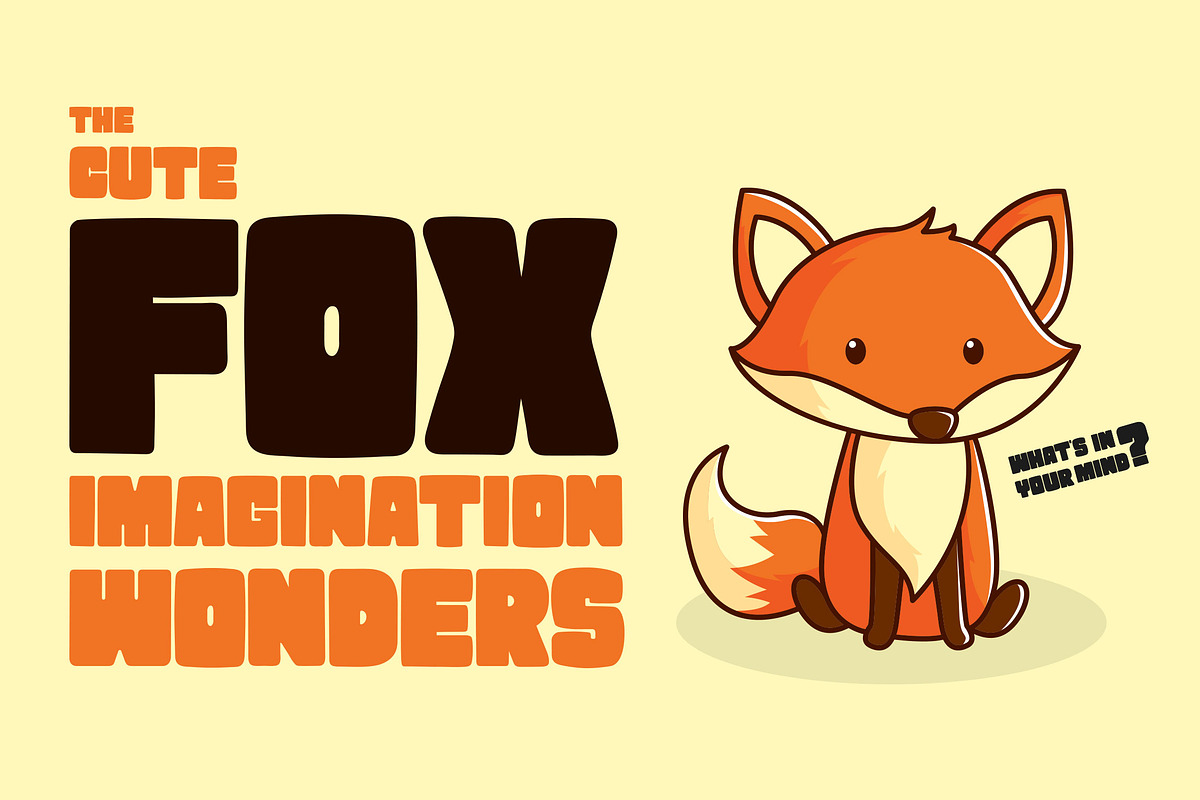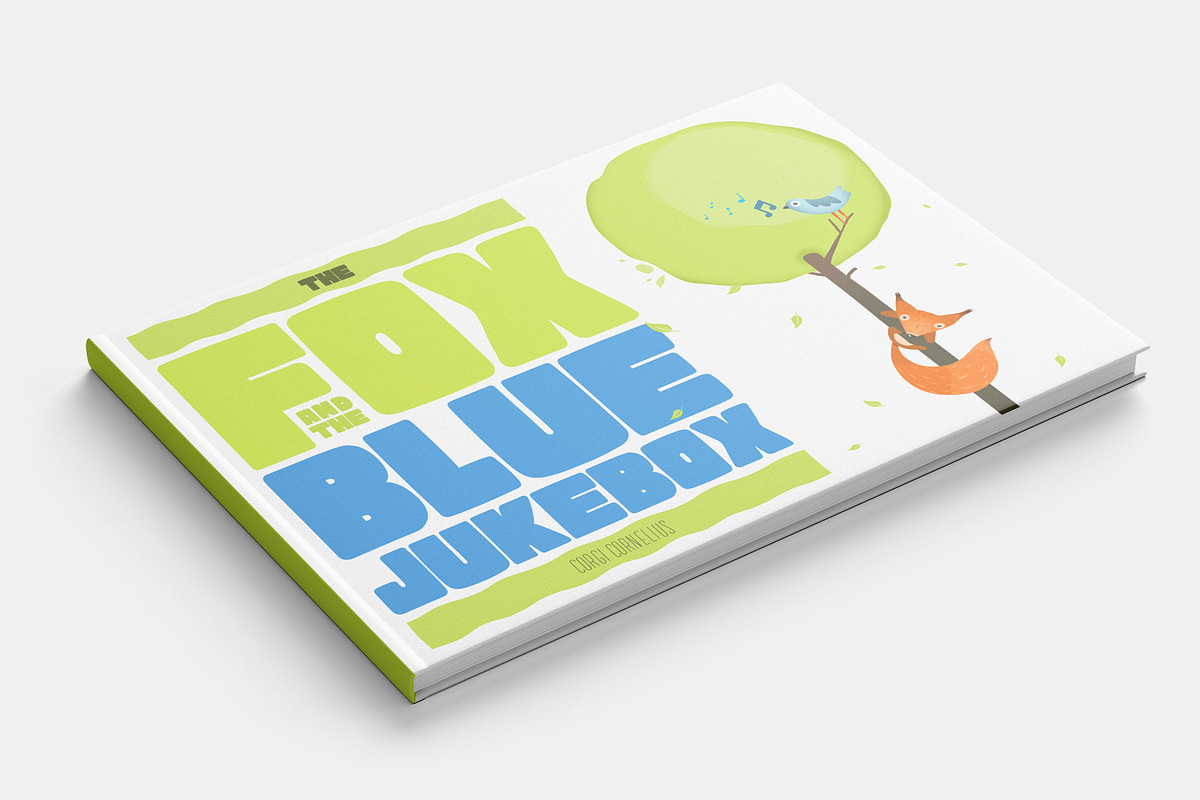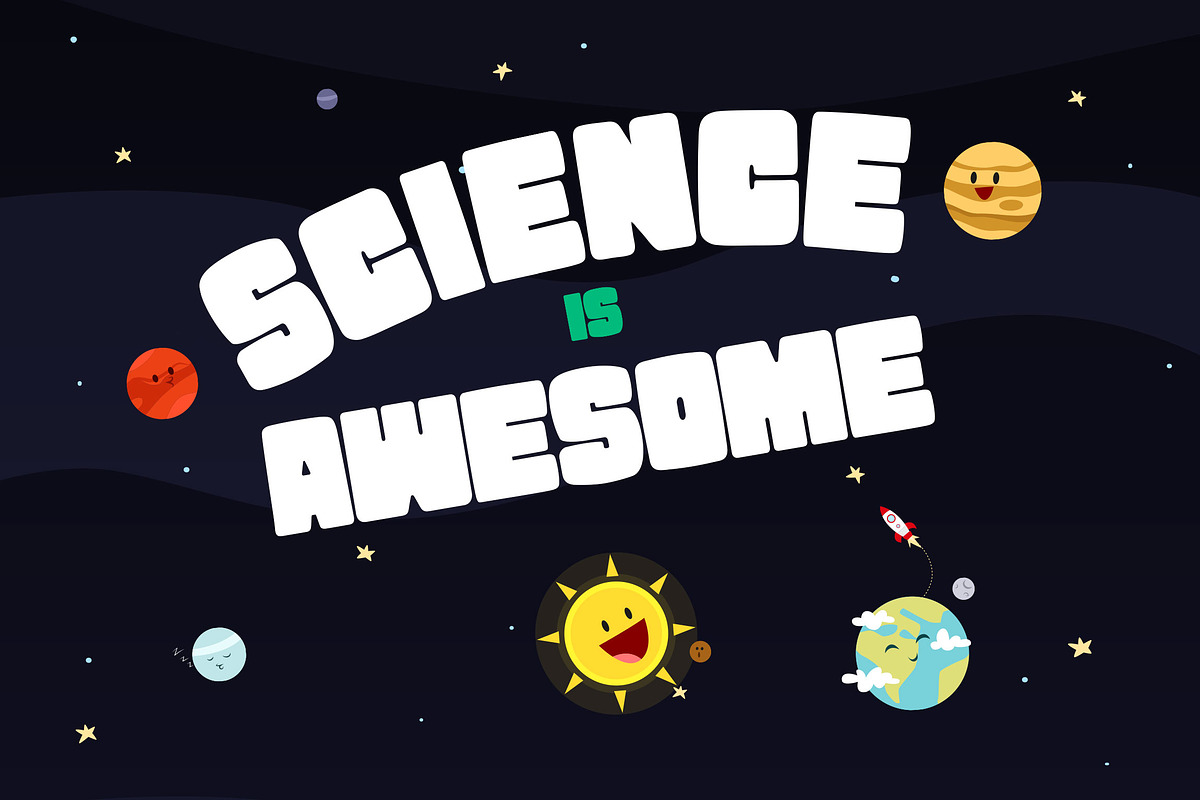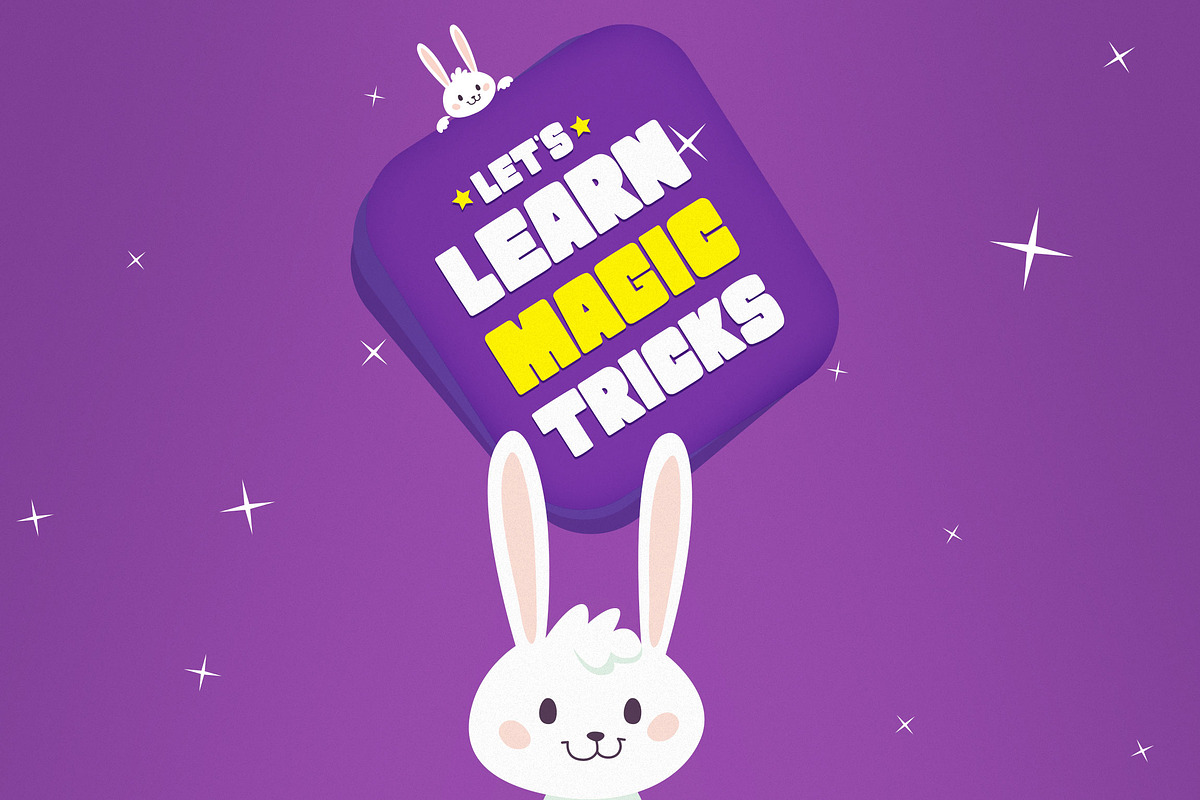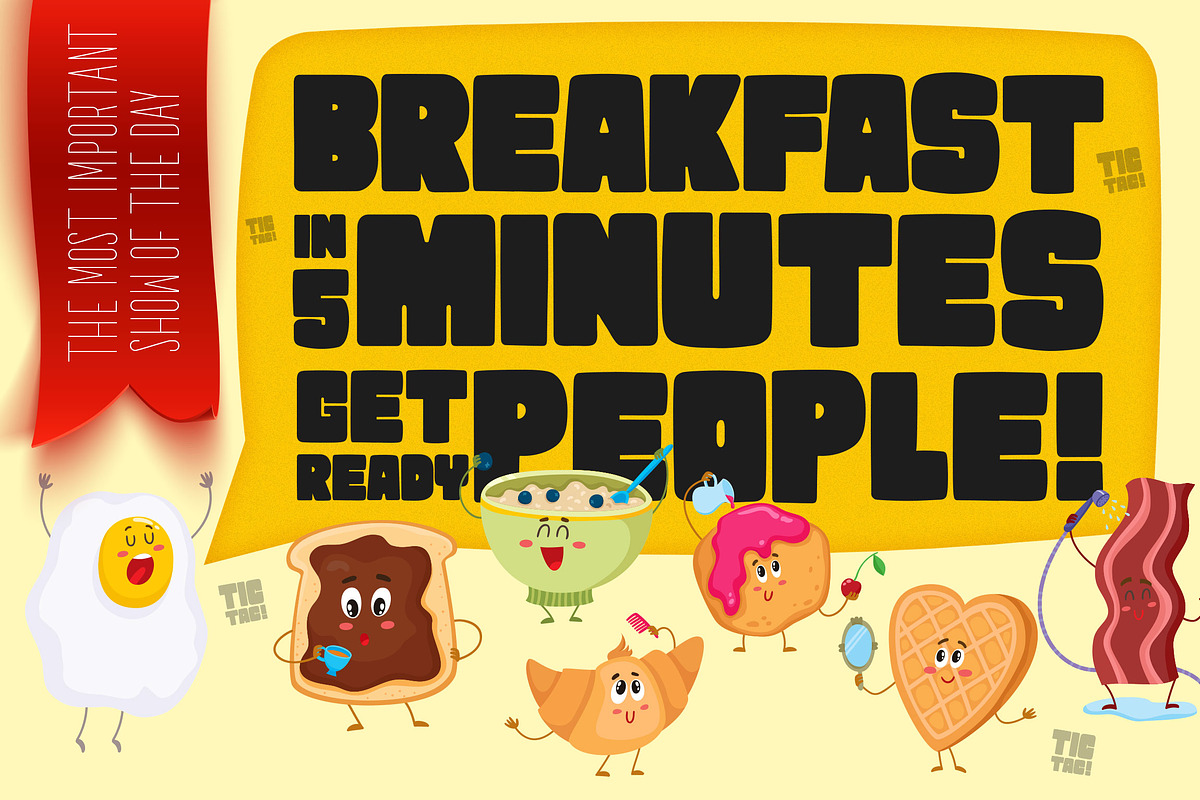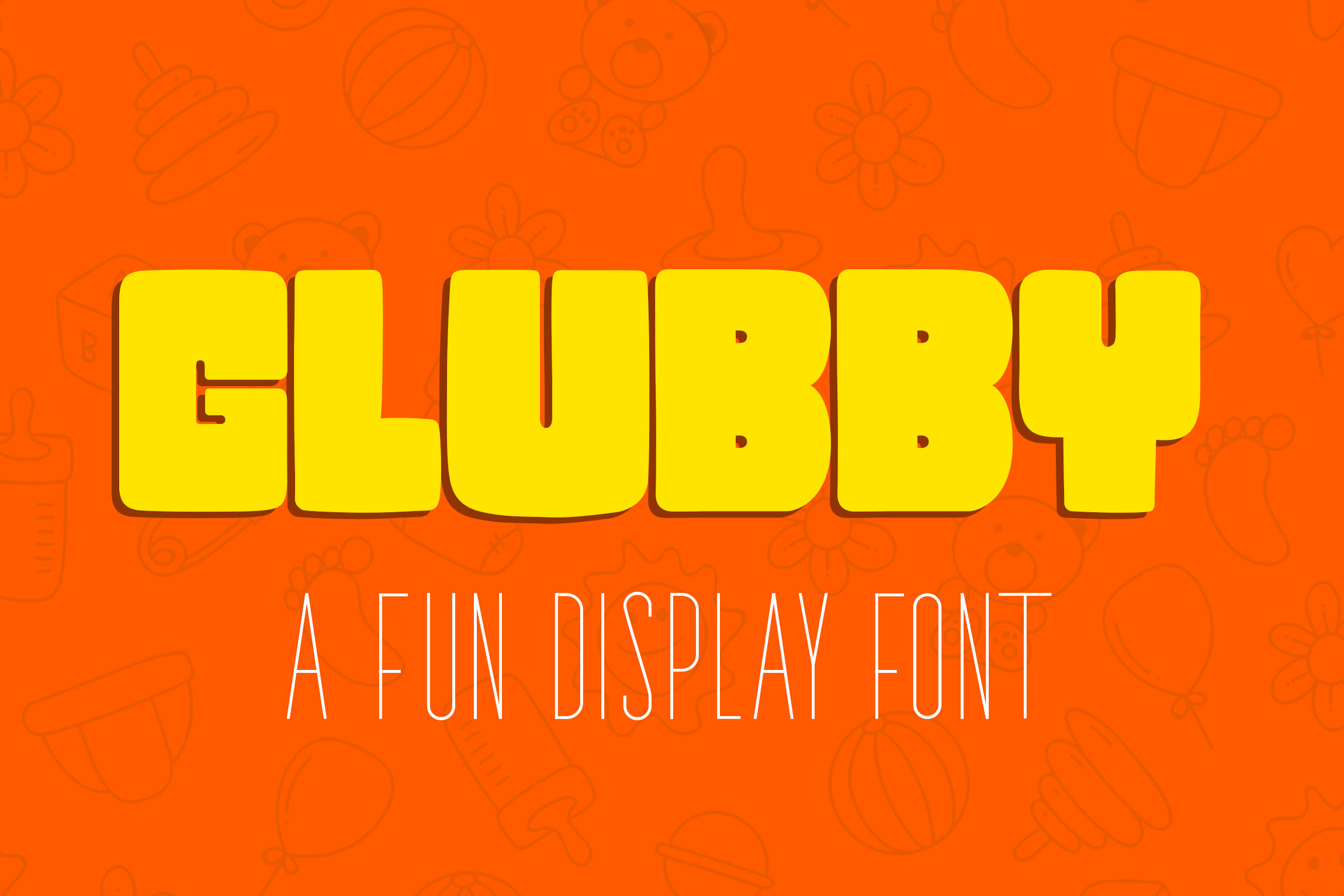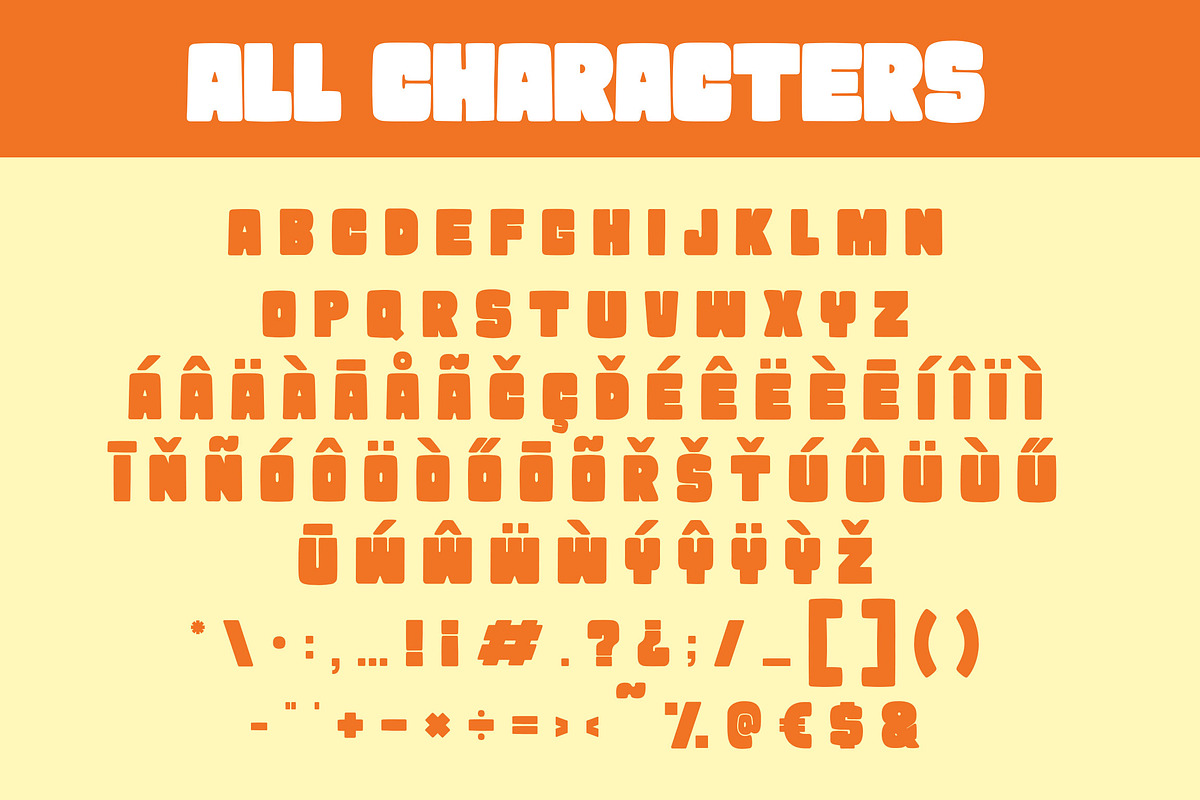
Glubby - Fun Display Font
Meet Glubby a fun special display font! It's perfect for fun, kids and children themes. With its fat bold look, you can use in big titles, posters, lettering, headlines and book covers to create a very cute look that kids will love it.
Language Support: English, Portuguese, Spanish, Dutch , Finnish, Hungarian, Italian, Swedish and Welsh.